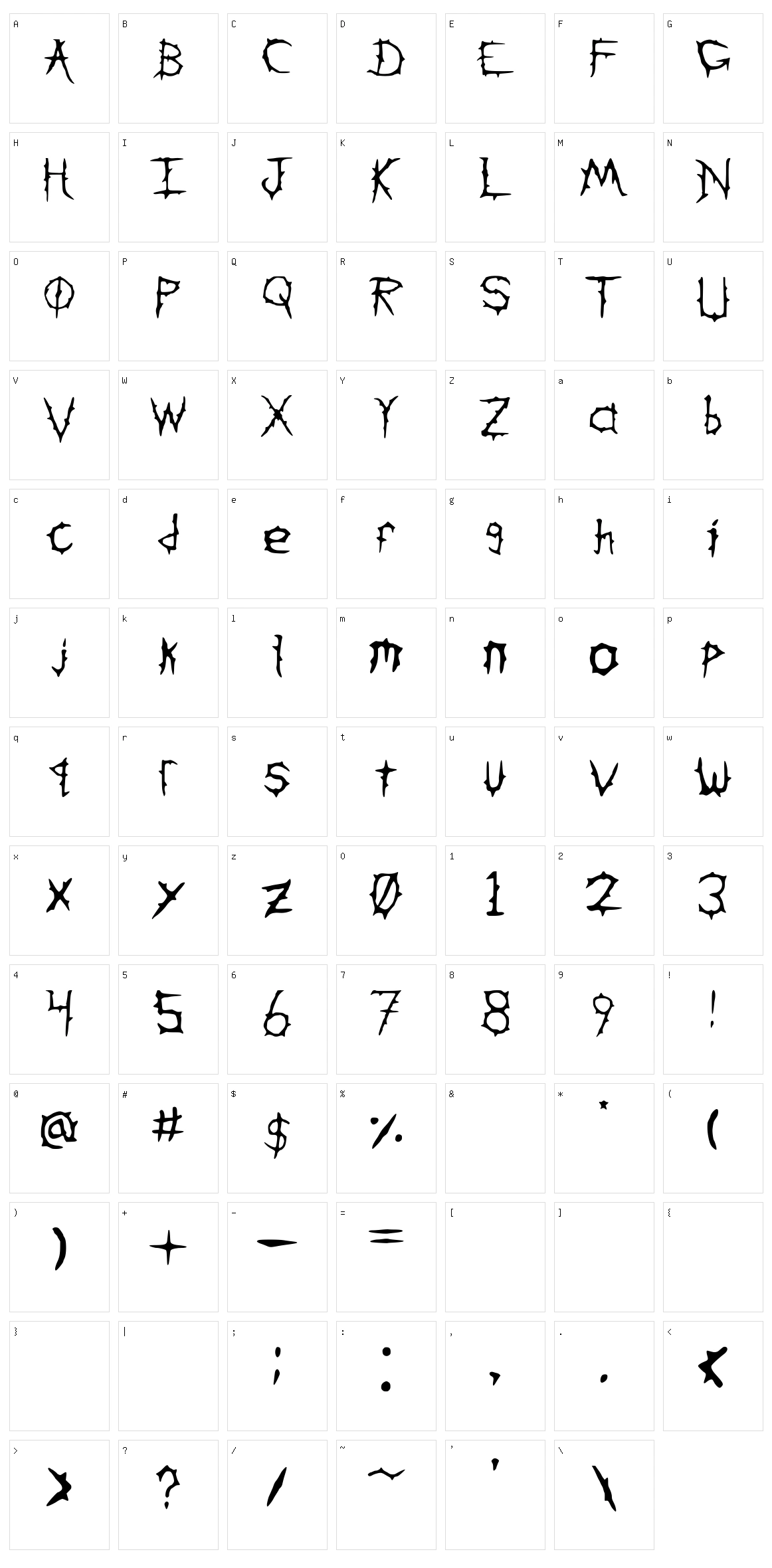
The free font Down With The Sickness is carefully designed by Andrew O'Connor, showcasing a thoughtful balance of creativity and usability and belongs to the Gothic font family. When you download the ZIP file, it contains only 18.78 KB of font files, making it lightweight and quick to download. Please review the license details below to understand permitted usage and distribution rights. If license information is not available, we recommend using this font for personal projects only or contacting the author directly for commercial usage permissions.